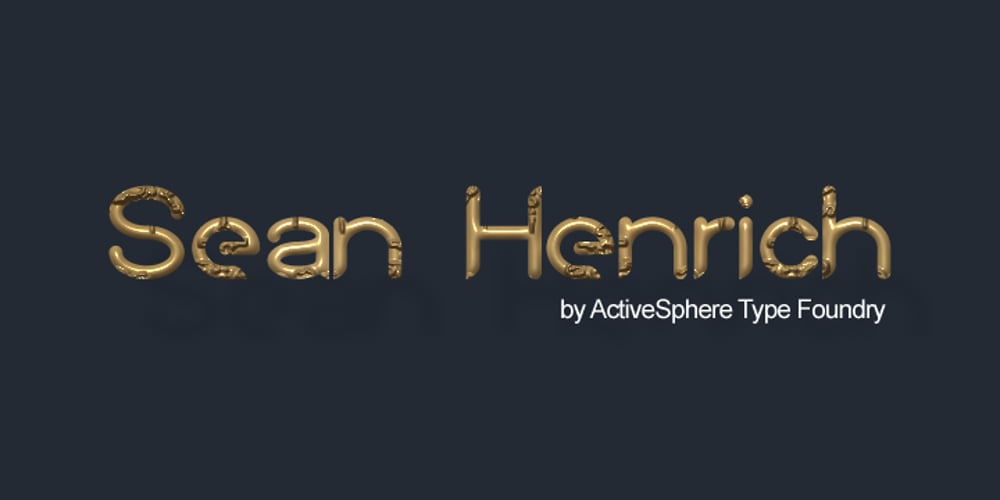
Sean Henrich ATF Font Family was designed by Ronnie Dela Cruz and published by ActiveSphere. Sean Henrich ATF contains 12 styles and family package options. Sean Henrich ATF is a sharp, rounded geometric display font and works best in text and display applications, such as headline, posters, signage, magazine, product branding, corporate branding, logos and titles. Several alternate characters are included in this typeface. Sean Henrich ATF font has six weights; ultra light, extra light, light, regular, bold and extra bold, each available in italic, making a total of twelve styles. Each style has a full upper and lower-case, accents, punctuation and a selection of monetary symbols. Currently Available for PC, in Open Type, PostScript or TrueType.